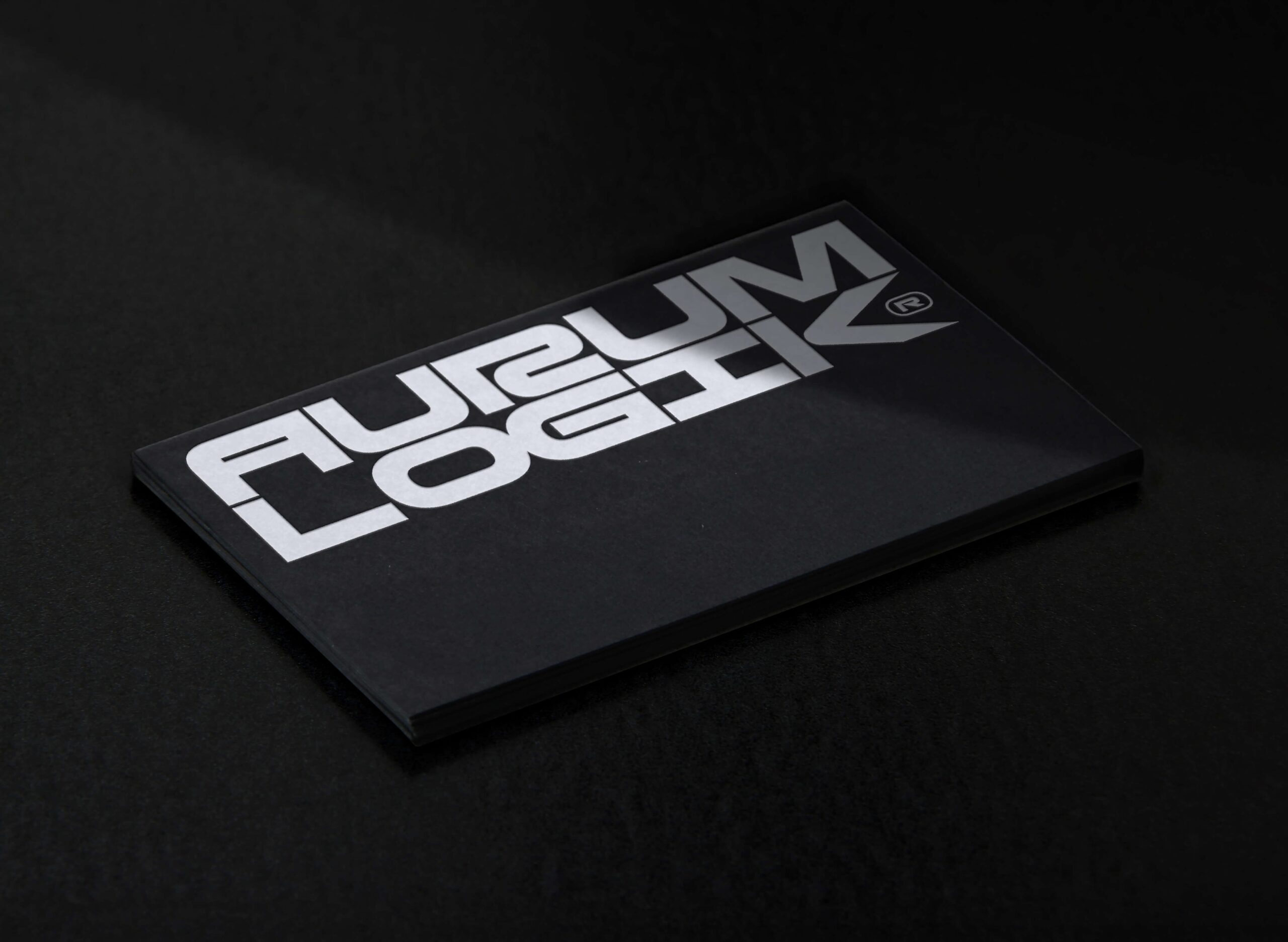
In an era where creative production is fragmented across tools, teams, and platforms, Aurum Logik proposes something different: a unified environment where sound, image, and narrative meet. Built for modern creators working across film, photography, audio, and video, the platform is as much about workflow as it is about vision — a space designed to support both operational systems and creativity.
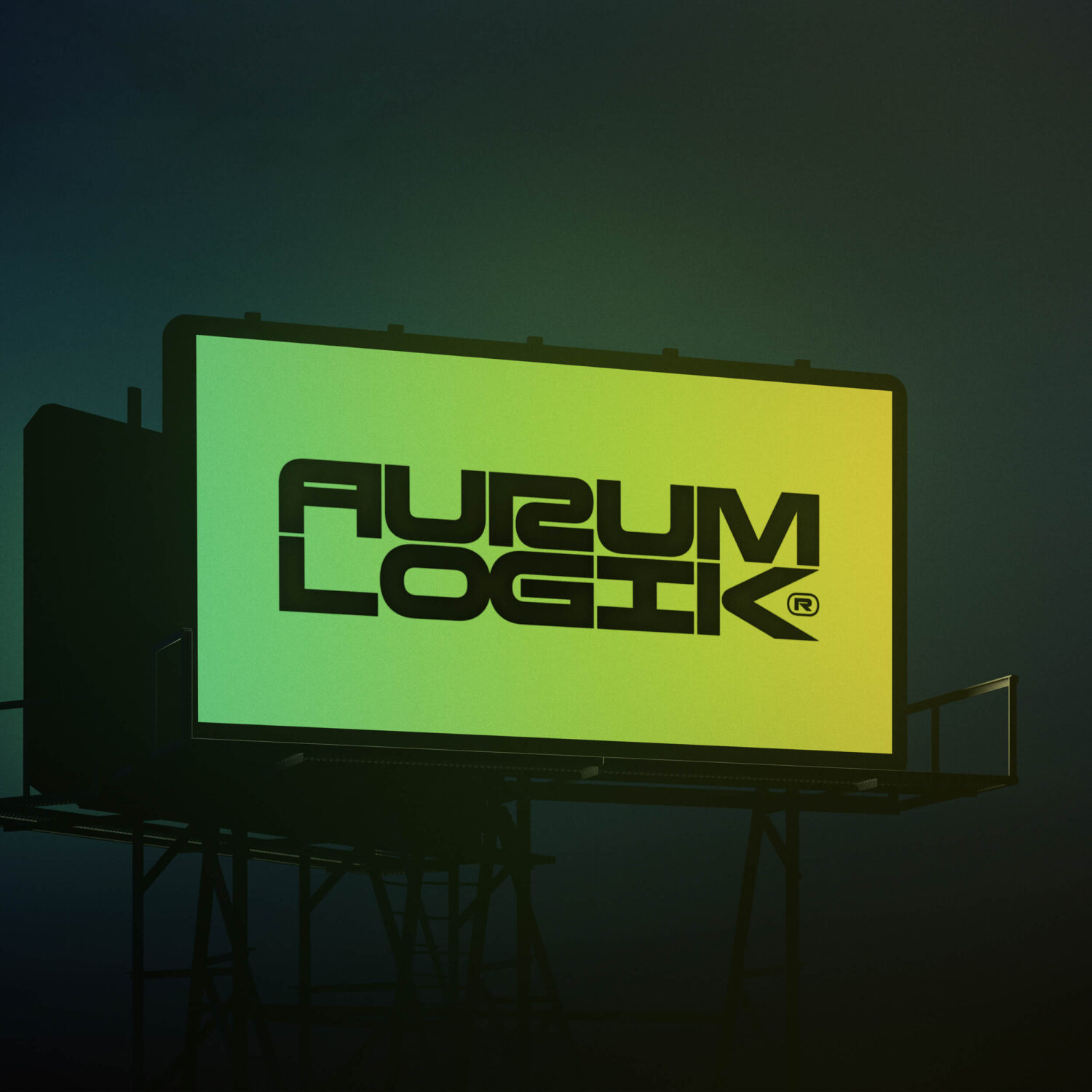
Invited to build the brand from the ground up, Forth+Back created a full identity system and digital experience that mirrors the platform’s forward-thinking nature. Anchored in a love of retro-futurism and industrial sci-fi, the system balances engineered detail with speculative aesthetics, resulting in a visual language that feels simultaneously technical and otherworldly. A connective tissue of custom icons, layered illustrations, and streamlined typography — including a custom wordmark built with Source Type’s font Rapid and the cross-platform use of their font Chroma — ties the system together. At the centre stands a powerful emblem: a futuristic helmet, uniting the identity with bold, iconic presence.
“A device that, once worn, would transport the user into a world of limitless possibility,” says Tanner Woodbury, Creative Director at Forth+Back. Embedded with gradients, logo detailing, and intricate linework, the helmet became the centrepiece of the campaign — a portal into Aurum Logik’s creative universe and a living extension of the platform itself.
Through this, the brand identity moves beyond just aesthetics and into narrative. It speaks to the dual role Aurum Logik plays: both infrastructure and imagination, technical system and creative ambition. By shaping a visual world that resonates with the platform’s ethos—and by collaborating with visionary artists, brands, and companies — in partnership with Forth+Back, Aurum Logik positions itself as an arena where creativity and technology converge, redefining what production can mean in the 21st century.